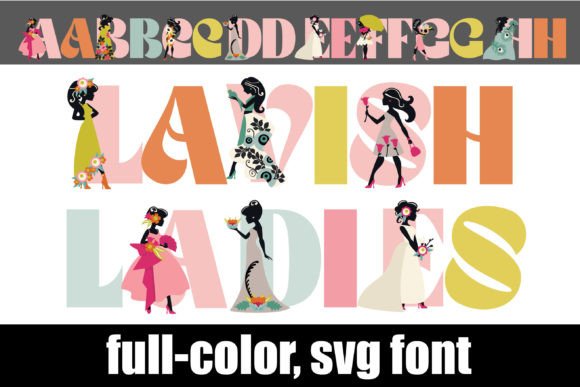
Step into the realm of captivating typography with Lavish Ladies Font, the ultimate font for retro enthusiasts seeking to bring a dash of playfulness to their designs. Each letter dances across the screen in an array of captivating hues, transforming your words into a vibrant spectacle. It's time to bid farewell to dull, monotonous fonts and embrace the enchantment of color!
The Lavish Ladies Font is not just a collection of letters; it's an artistic masterpiece that ignites the imagination. Its retro charm evokes a sense of nostalgia, transporting you back to an era of boundless creativity and expression. Unleash your inner artist and let your designs flourish with this font's playful spirit.
With its PUA encoding, Lavish Ladies Font offers effortless access to a treasure trove of glyphs and swashes, empowering you to add intricate details and flourishes to your designs. Say goodbye to limitations and embrace endless creative possibilities!
Whether you're crafting logos, posters, invitations, social media graphics, or any other visual creation, Lavish Ladies Font is your perfect companion. Its versatility knows no bounds, allowing you to create stunning designs that resonate with your audience. Prepare to witness the transformation as ordinary text morphs into an extraordinary symphony of colors.
Embrace the allure of Lavish Ladies Font today and embark on a typographic adventure like never before. Elevate your designs to new heights, capture attention, and leave a lasting impression on your audience. Let your creativity soar and paint the world with a rainbow of words!